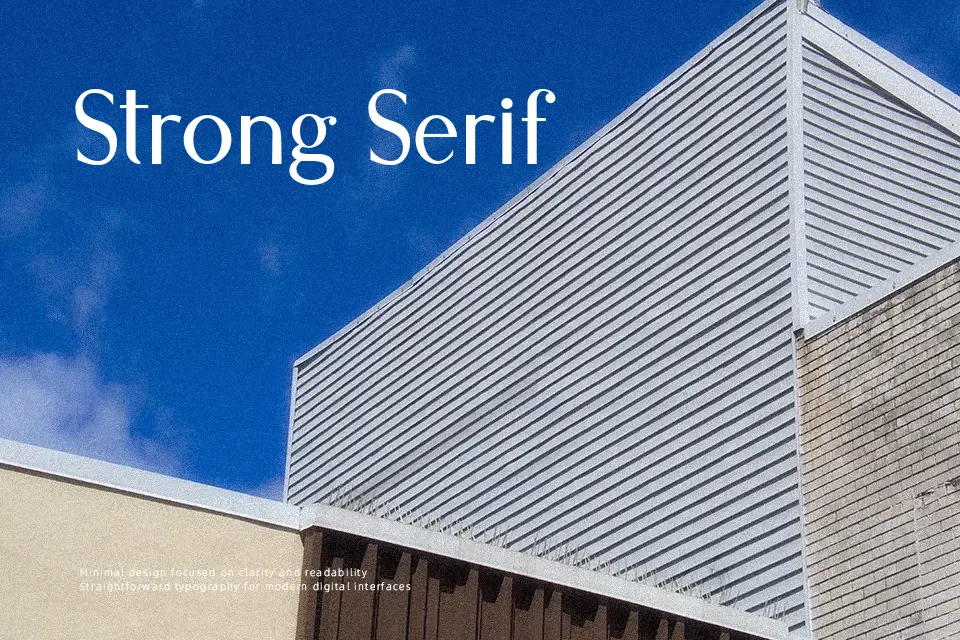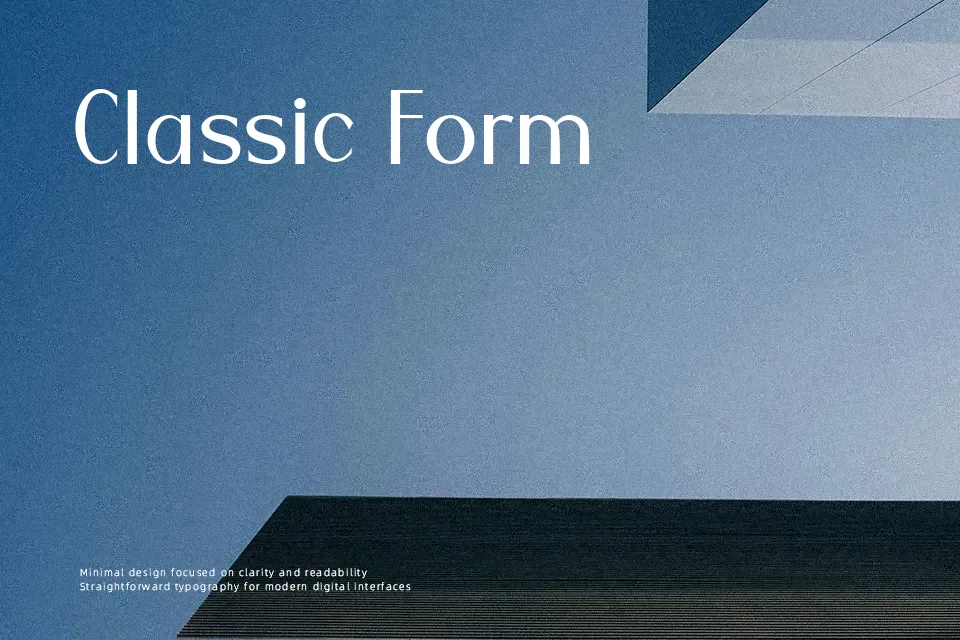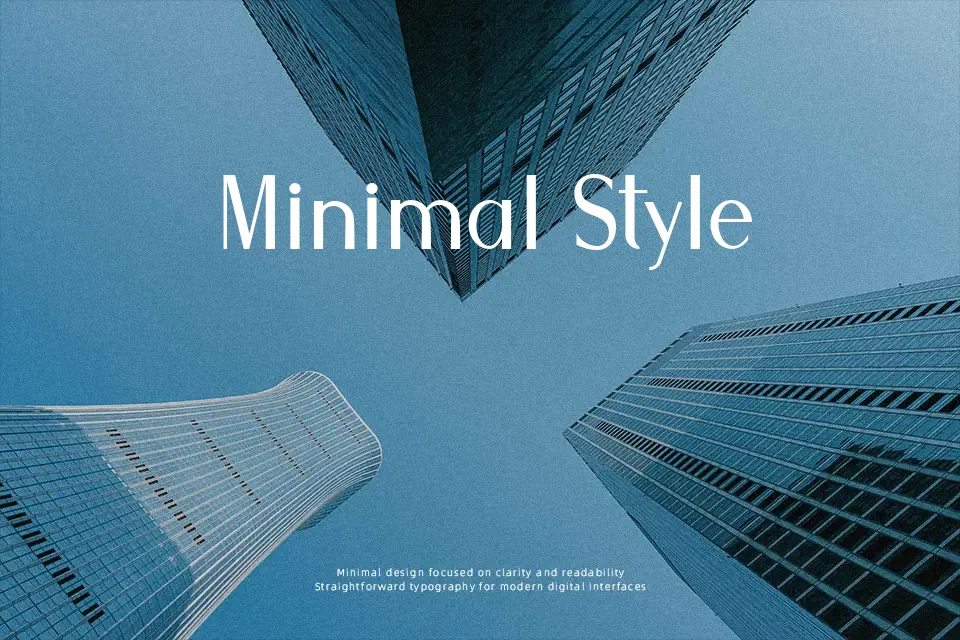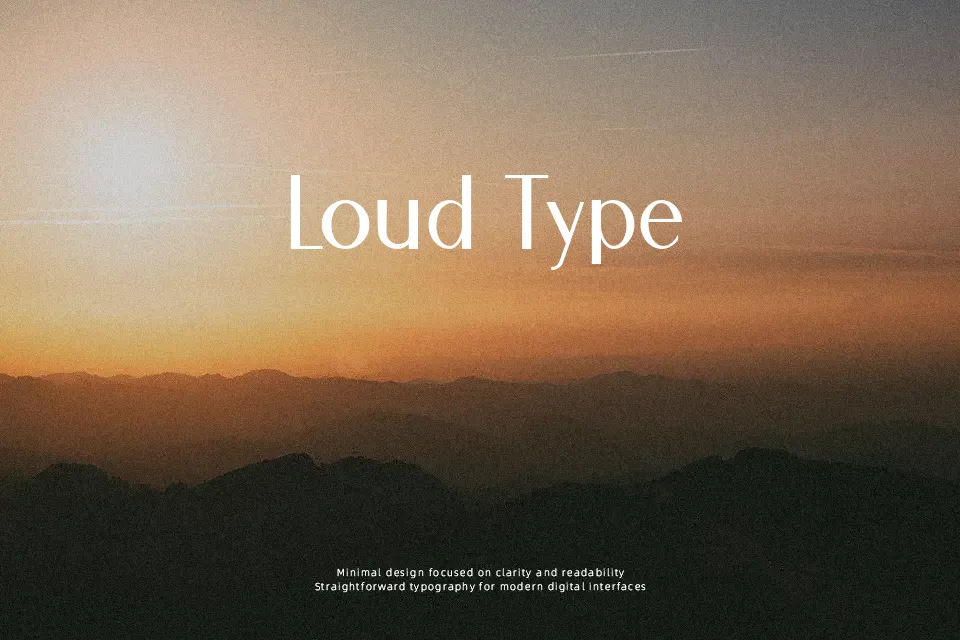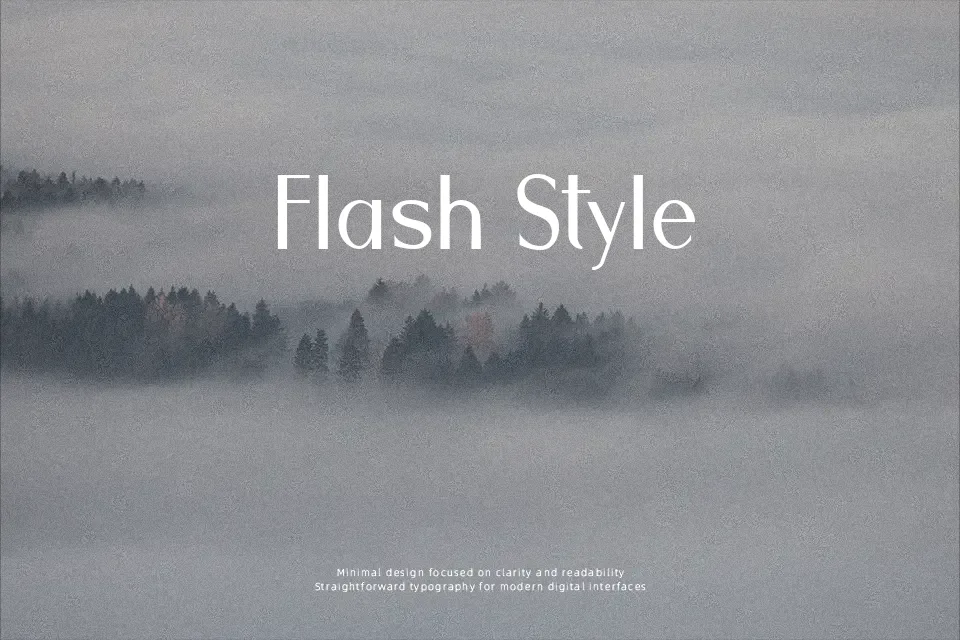
1927 Epoque Font
Designed by Galdino Otten Fonts
1927 Epoque carries the visual weight of early 20th-century typography — structured letterforms with subtle decorative flourishes, moderate stroke contrast, and tight yet readable spacing that evokes the Art Deco era without tipping into pastiche. The overall impression is one of dignified nostalgia, the kind that suits a Prohibition-era speakeasy menu or a heritage brand revival campaign. It reads well at display sizes on posters and editorial headers but loses its character at small scales, where the finer details flatten and the retro mood dissolves. For projects that demand a specific period feel — 1920s branding, vintage film titles, or themed event collateral — this font lands with conviction. Body text is where it stumbles; rhythm and legibility break down quickly over extended paragraphs.
Best For:- Art Deco-themed poster and event headers
– Heritage brand or product packaging labels
– Vintage editorial section titles
– Themed restaurant or bar menu covers
Not Ideal For:- Long-form body text or editorial paragraphs
– Corporate reports or professional business documents
– Digital UI elements requiring high legibility at small sizes
– Modern minimalist branding
Perfect for branding, editorial, and packaging, with a classic and decorative style.